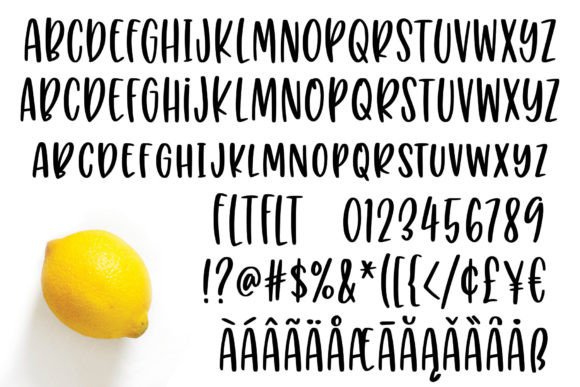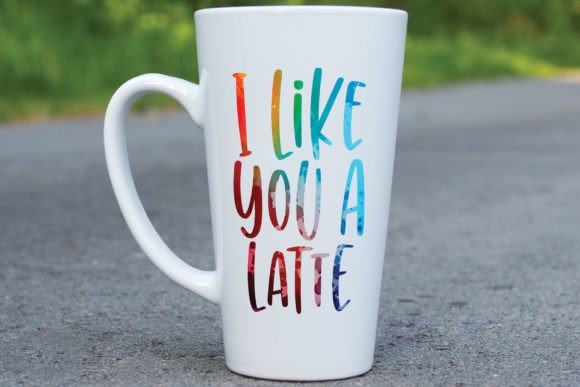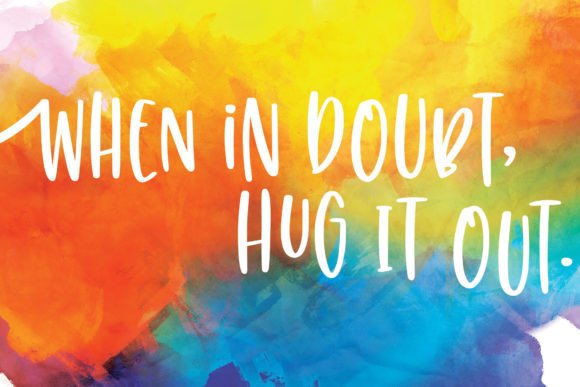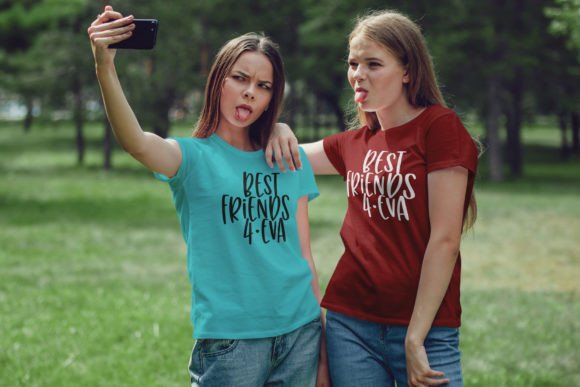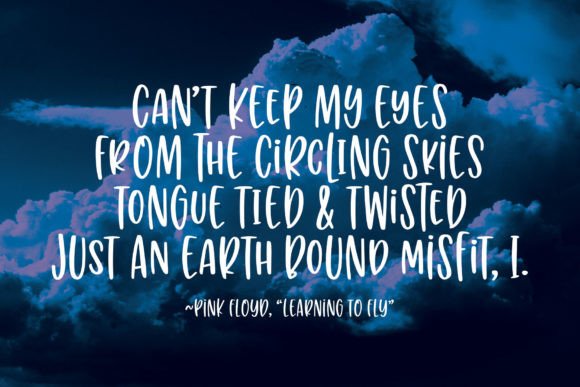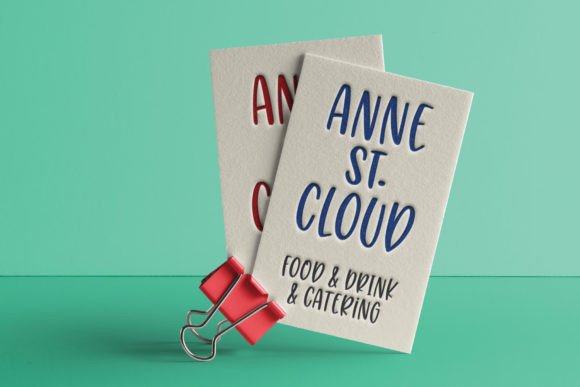
Introduction to Puckery Tart Font Font
Fonts play a crucial role in design, and the Puckery Tart Font font is a typeface that brings both character and versatility to any project. Whether you’re working on a branding project, a website, or a print design, the Puckery Tart Font font offers a unique style that can elevate your work.
I like almost all citrus, but I gotta be honest ā lemons are by far my favorite.
After wanting one for over 20 years, I recently got my very own lemon tree, so Iām celebrating by naming a font PUCKERY TART This is a taller, narrower hand-lettered font with plenty of variety to make your projects look hand-written.
Key Features of Puckery Tart Font Font
- ā High-quality typeface designed for professional use
- ā Includes a wide range of glyphs and characters
- ā Ideal for logos, branding, websites, and print
Why Choose Puckery Tart Font Font?
The Puckery Tart Font font is more than just a typeface ā it’s a design tool that helps you communicate your message with style and clarity. Its unique character set and versatile design make it suitable for a wide range of applications, from elegant invitations to bold headlines.
With its carefully crafted letterforms and balanced proportions, the Puckery Tart Font font ensures readability and visual appeal across all mediums.
What makes Puckery Tart Font font special?
The Puckery Tart Font font stands out with its unique design, exceptional readability, and versatility across various design applications.